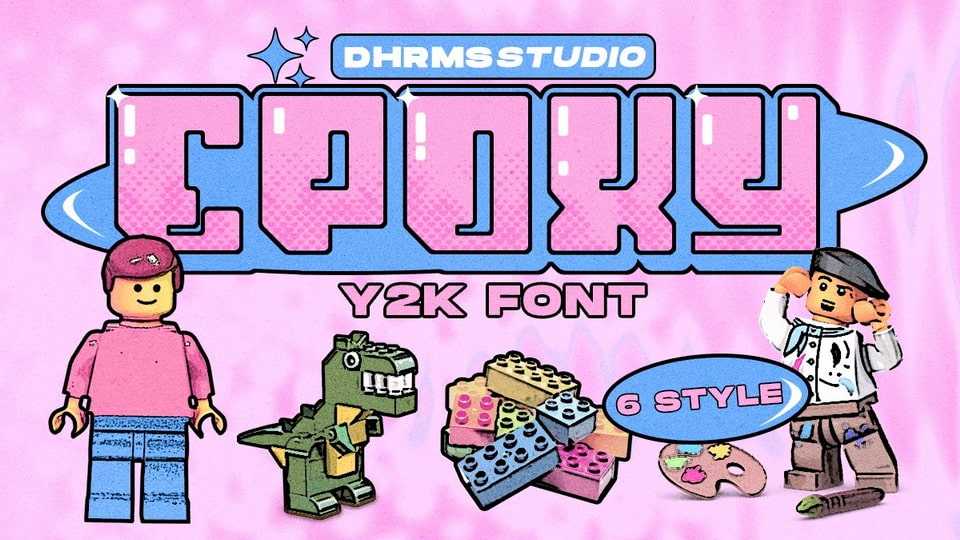
Download Epoxy font, a typeface that exudes the playful and iconic vibes of the y2k era, inspired by the beloved Barbie cartoon style, where all hues are dipped in pretty pink.